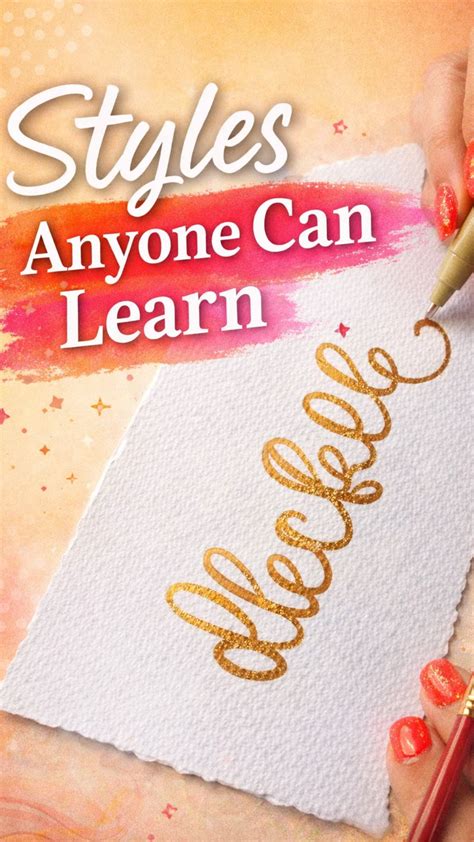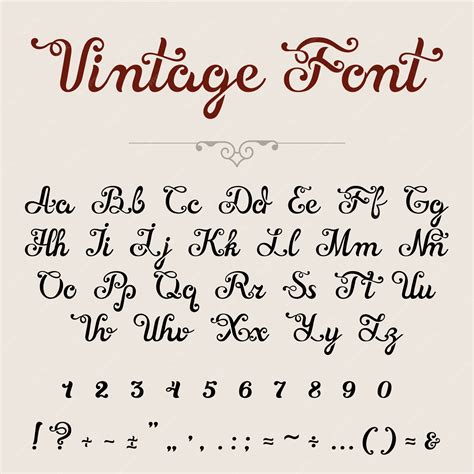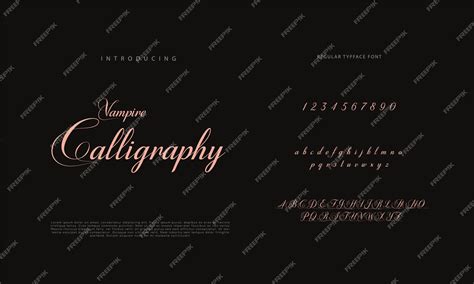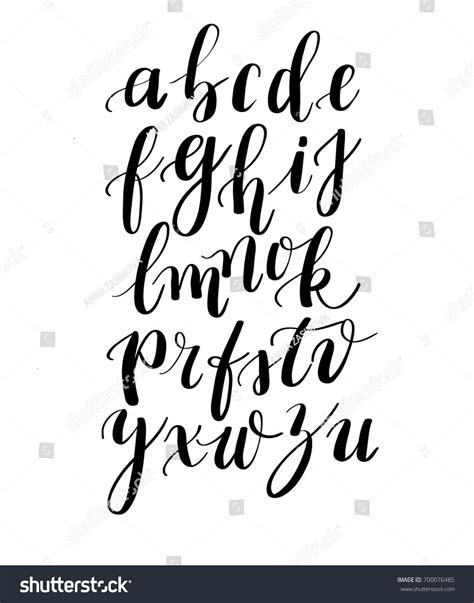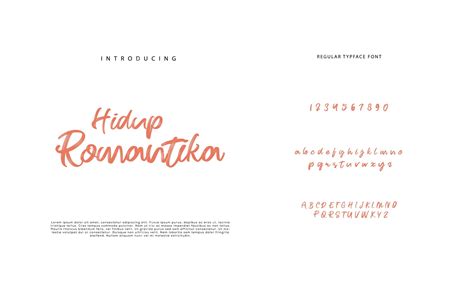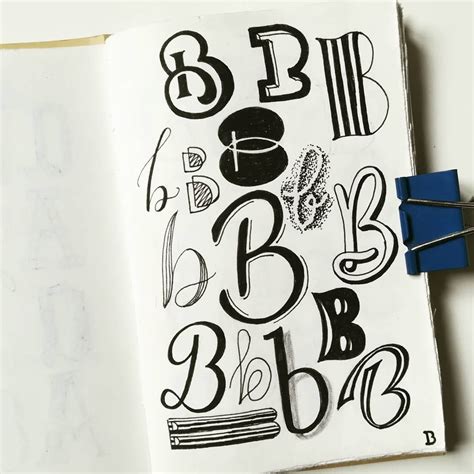
The art of custom composition has realize a monumental resurgence in the digital age, bring the heat of human touch back into graphic design. Whether you are creating wedding invitations, branding materials, or societal medium artwork, opt the right Hand Lettering Fonts can drastically modify the climate of your project. Unlike standard computer typeface, these fount mime the organic flow of pen-on-paper work, proffer a personalised aesthetic that find authentic and inviting. As decorator seek to escape the rigidity of corporate design, mix high-quality hand or display fonts that lionize imperfection has become the gold standard for originative reflexion.
The Evolution of Hand-Drawn Aesthetics
Historically, letter was a manual labor of love, involve years of practice in calligraphy and sign painting. Today, the availability of digital design package has allowed artist to digitalize their alone scripts, metamorphose hand-drawn designs into versatile digital files. These fonts bridges the gap between traditional craft and mod efficiency, allowing for speedy iterations without sacrificing character.
Key Characteristics of Authentic Lettering Fonts
To identify top-tier plan that capture the essence of handmade art, aspect for these specific trait:
- Natural Fluctuation: Genuine lettering seldom has perfect eubstance. Expression for face that sport vary line weights and slight irregularities in the stroke.
- Ligatures and Contextual Alternates: High-quality baptistery frequently include OpenType features that mechanically adjust the way characters associate, making them look like true cursive script.
- Texture Integration: Some fonts come with "rough" or "backbone" textures to simulate fusain, ink bleed, or dry brush outcome.
Selecting the Right Style for Your Project
When incorporating these fonts into your employment, context is everything. You want a face that complements the message sooner than overwhelming it. Below is a crack-up of common styles constitute within this family.
| Style | Better Employ For | Vibration |
| Brush Script | Logos, publicity, headline | Energetic, bold, artistic |
| Monoline | Invites, minimum branding | Modern, clean, elegant |
| Vintage Serif | Poster, retro clothes | Nostalgic, sturdy, definitive |
💡 Note: Always ensure your chosen font includes a comprehensive glyph set, include punctuation and international characters, if you contrive to use it for professional publishing or web undertaking.
Best Practices for Typography Layout
Even the most beautiful script font can look messy if it is not paired or spaced aright. Mastering the hierarchy is crucial for reach a balanced pattern.
Pairing Tips
- The Contrast Rule: Pair an intricate handwriting fount with a light, sans-serif face for the body textbook to control readability.
- Tracking Adjustment: Book baptistry much demand tighter kern than cube missive to appear cohesive. Do not be afraid to adjust the missive space manually in your designing package.
- Hierarchy Topic: Use your hand-drawn selection for presentation intent only - never use it for long-form paragraphs, as it will beat the reader's eye.
💡 Line: Quiz your typography on different screen resolutions. Some highly intricate copse baptistery may lose their item when scaled down for mobile device layouts.
Achieving a professional look in your design project relies heavily on your ability to take case that communicate emotion and design. By read the discrete characteristics of various font styles and maintaining proper proportion through spacing and mating, you can raise your visuals to a high criterion. Whether you prefer the raw, unrefined energy of a dry brush stroke or the svelte grace of a monoline handwriting, these resources proffer interminable possibilities for creativity. When used thoughtfully, these alone typographical pick insure that your substance remains not only decipherable but also memorable and deep engaging in any optical environs.